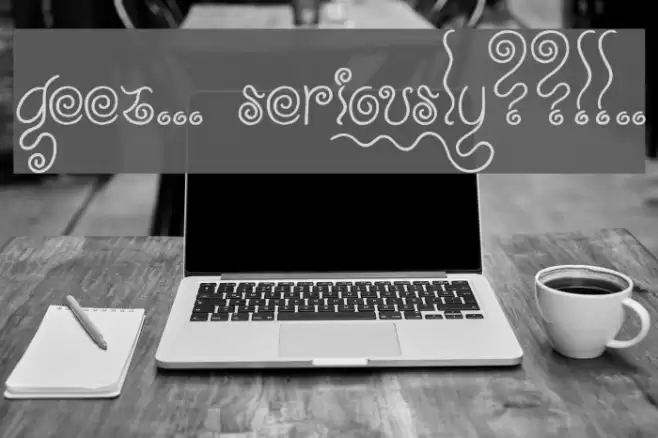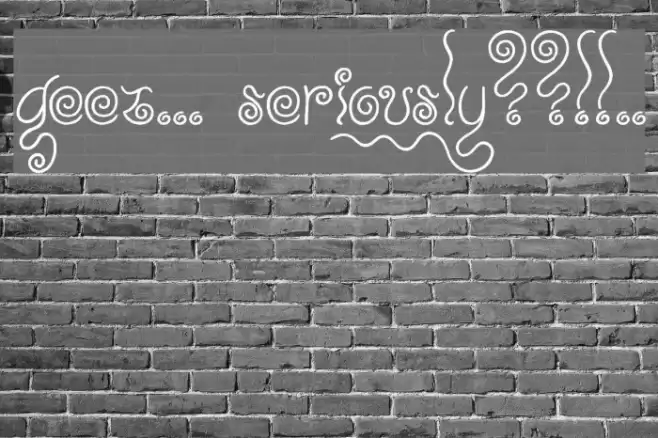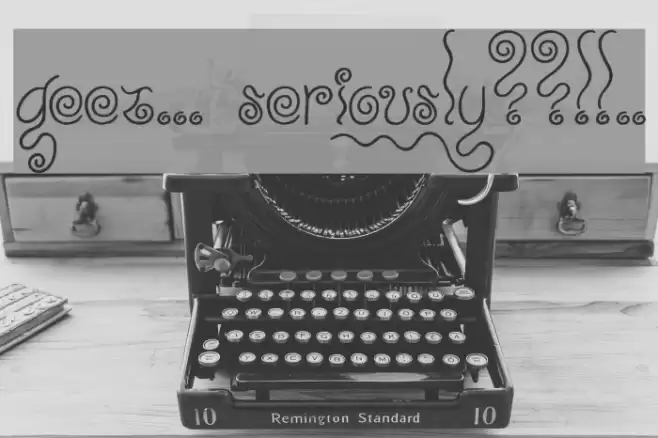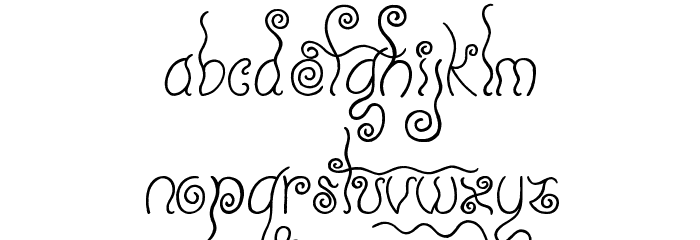
Geez... Seriously??!!.. Font
Geez... Seriously??!!.. Description
This font features an elaborate and whimsical design, characterized by its swirling and curly embellishments on each character. The uppercase and lowercase letters are highly decorative, with intricate loops and curves that give it a playful and artistic appearance. The numerals maintain a more traditional form but still incorporate subtle curves, adding to the overall cohesive style. The special characters are equally ornate, fitting seamlessly with the rest of the font's design. This font is ideal for projects that require a touch of creativity and flair, making it suitable for artistic and decorative purposes.
A whimsical and decorative font with swirling, curly embellishments from Curly fonts.
- Proposed Projects: Ideal for invitations, artistic posters, branding for creative businesses, and decorative headings.
- Use Case: Headlines, Logos, Artistic projects